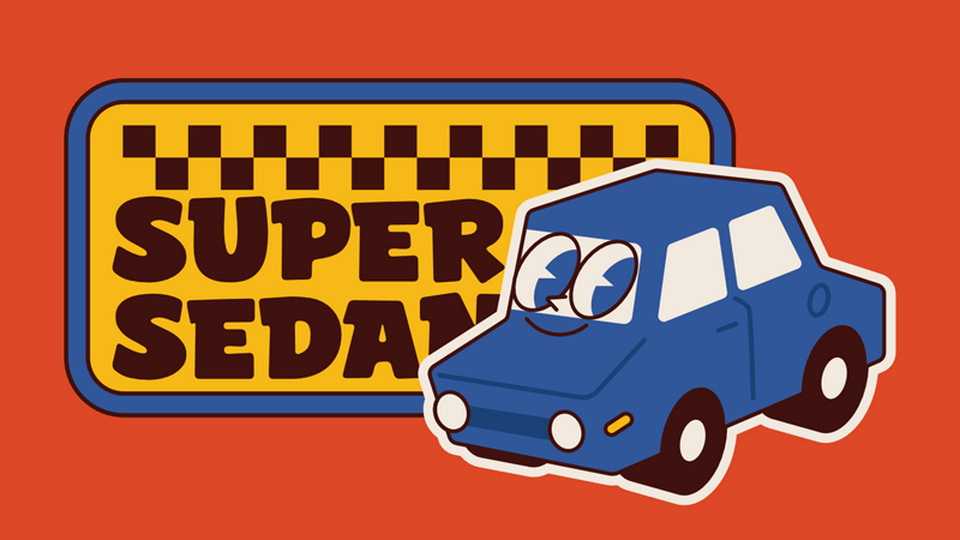
Download Super Sedan font, a cartoon typeface that combines the boldness of cartoon letterforms with a joyful and whimsical spirit. Each character is crafted with thick, playful strokes and charismatic curves that exude a sense of delight and merriment.